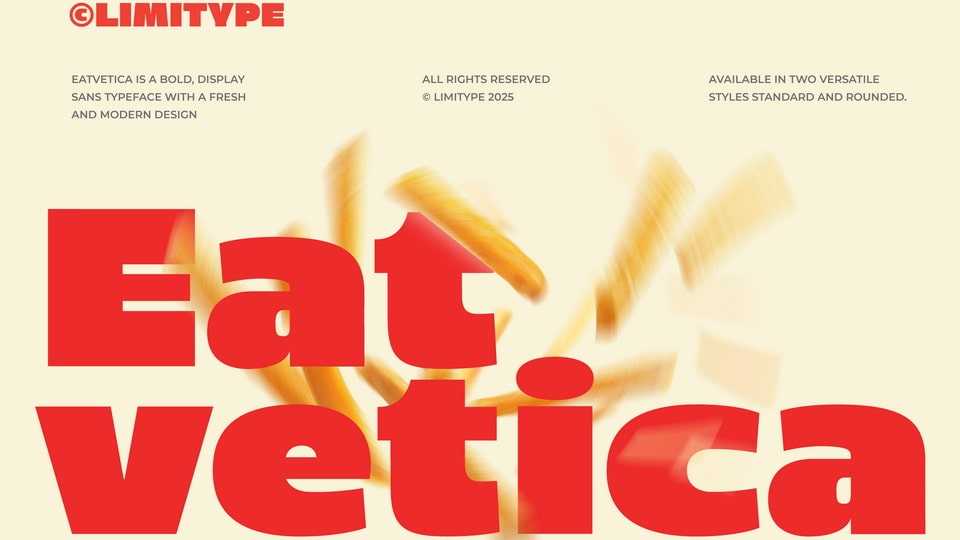
Download Eatvetica font, a bold food typeface crafted specifically for the culinary world and food-themed design with its strong and well-proportioned letterforms.